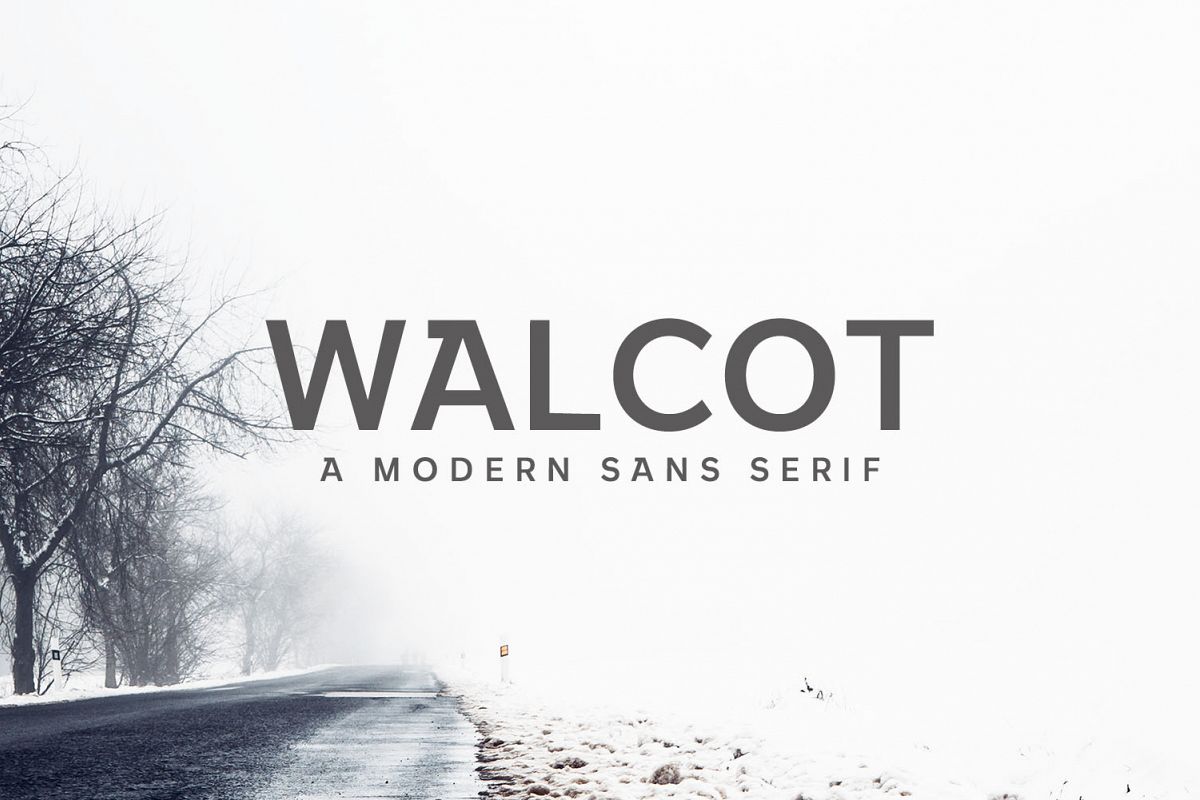
Walcot Modern Sans Serif Font
Walcot is a modern and minimal sans serif font. It comes with 3 weights: Regular, Round and Bold versions, which contains complete basic glyphs with multilingual support. Walcot will be perfect for packaging, presentations, logo, headlines, lettering, posters, branding, quotes, titles, magazines headings, web layouts, advertising, invitations, packaging design, books, and nearly any creative design.
• Font Weight: Regular, Round and Bold
• Uppercase Letters
• Lowercase Letters
• Non English Characters ( Latin Supplement + Latin Extended A)